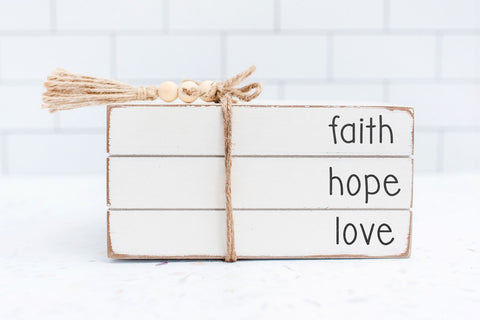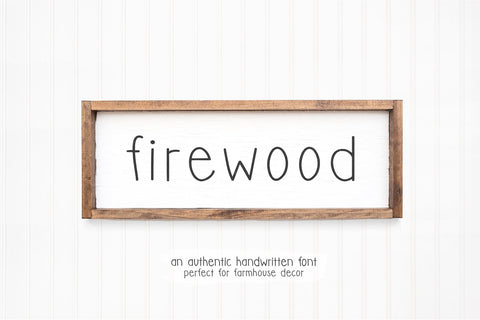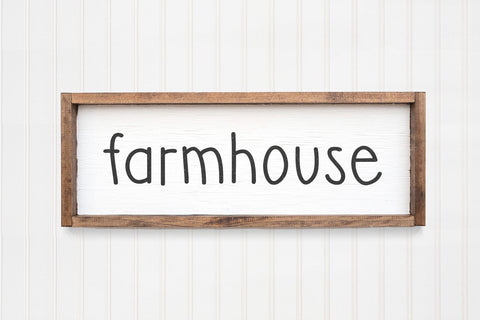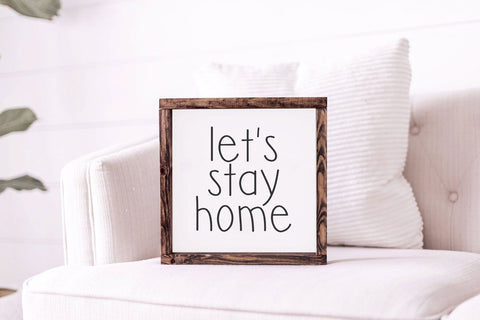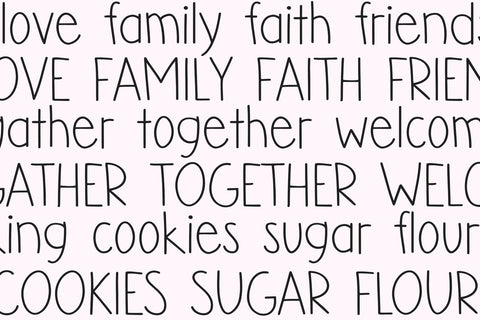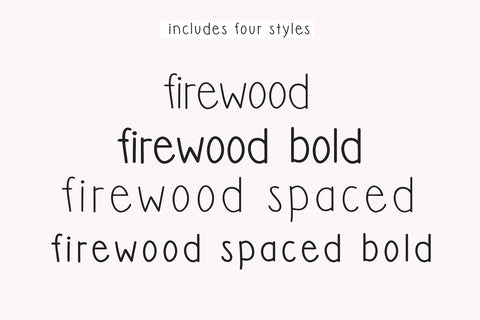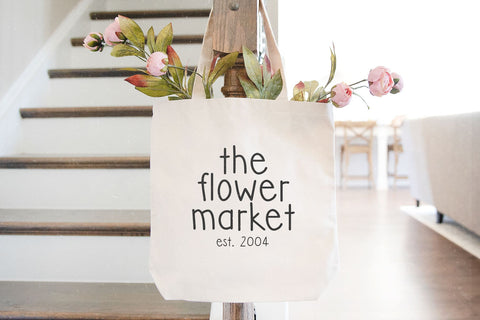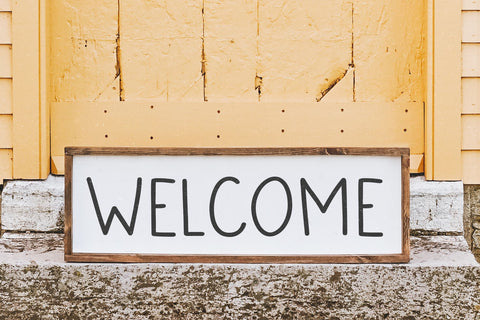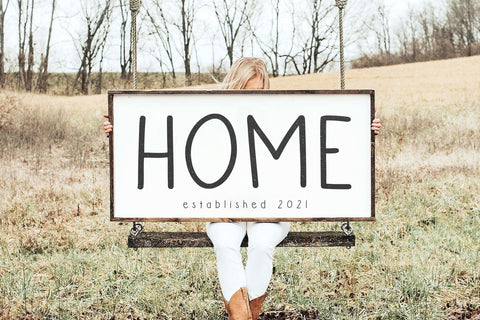
Firewood - Handwritten Farmhouse Font
Firewood is a handwritten font in a style that is perfect for all of your farmhouse designs!
This font is perfect for creating svg designs, farmhouse signs, shirts, decor, social media and more!
Firewood, Firewood Bold, Firewood Spaced, Firewood Bold Spaced